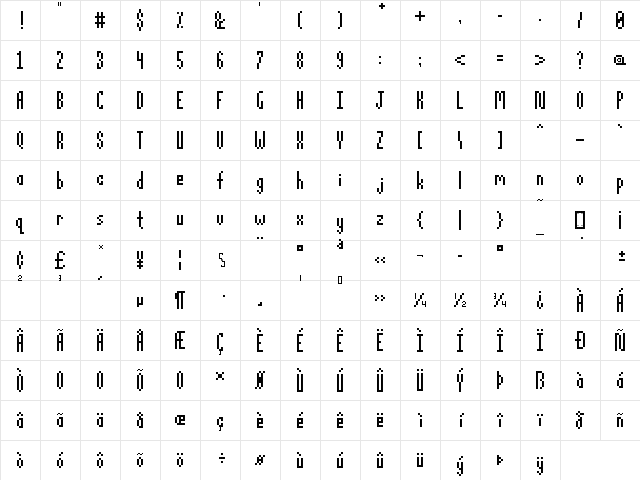
Pixelatus Regular
Design Context for Pixelatus Typeface
Pixelatus celebrates the constraints of early digital type, turning pixel geometry into a distinctive and immediately recognisable style.
A natural choice for retro game titles, chiptune music branding, 8-bit UI, and digital nostalgia projects.